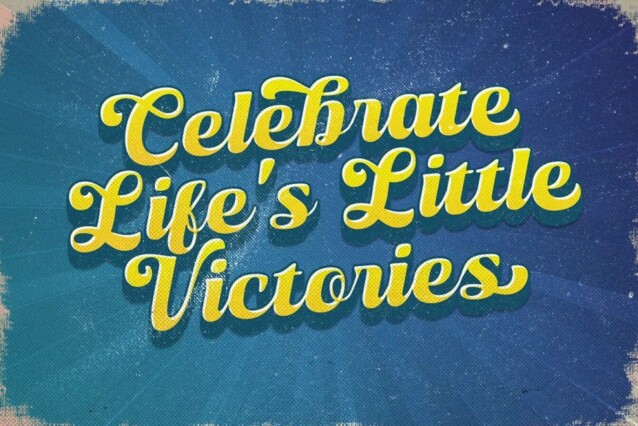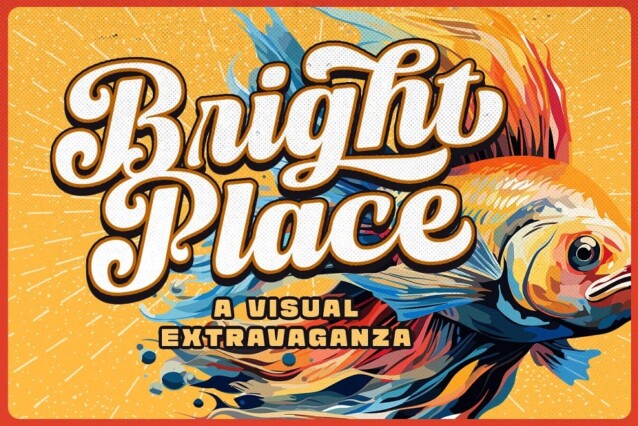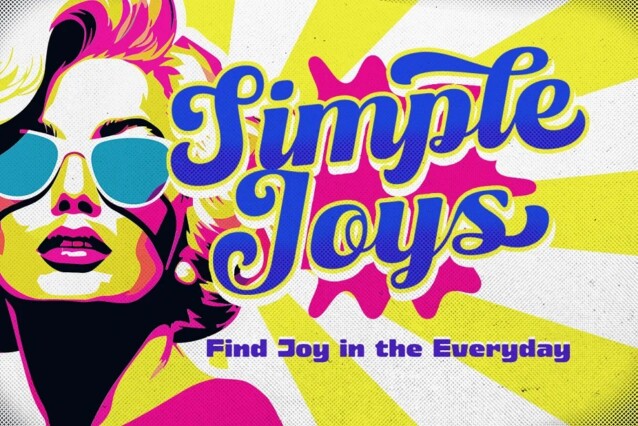
Gilded Majestic Font is a soft and sweet Bold typeface, with characters dancing along the baseline. This type of font perfectly made to be applied especially in logo, headline, signage and the other various formal forms such as invitations, labels, logos, magazines, books, greeting / wedding cards, packaging, fashion, make up, stationery, novels, labels or any type of advertising purpose.